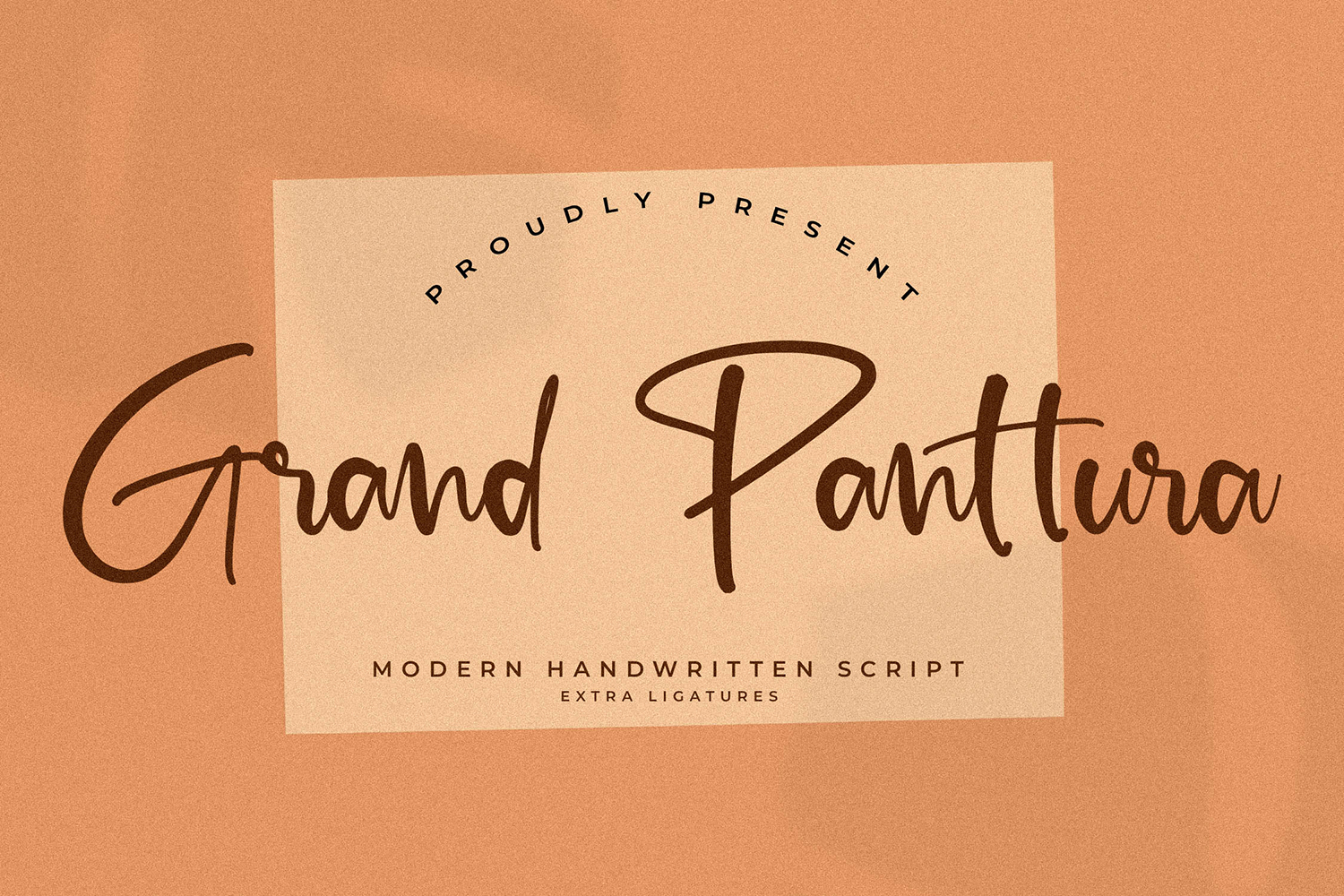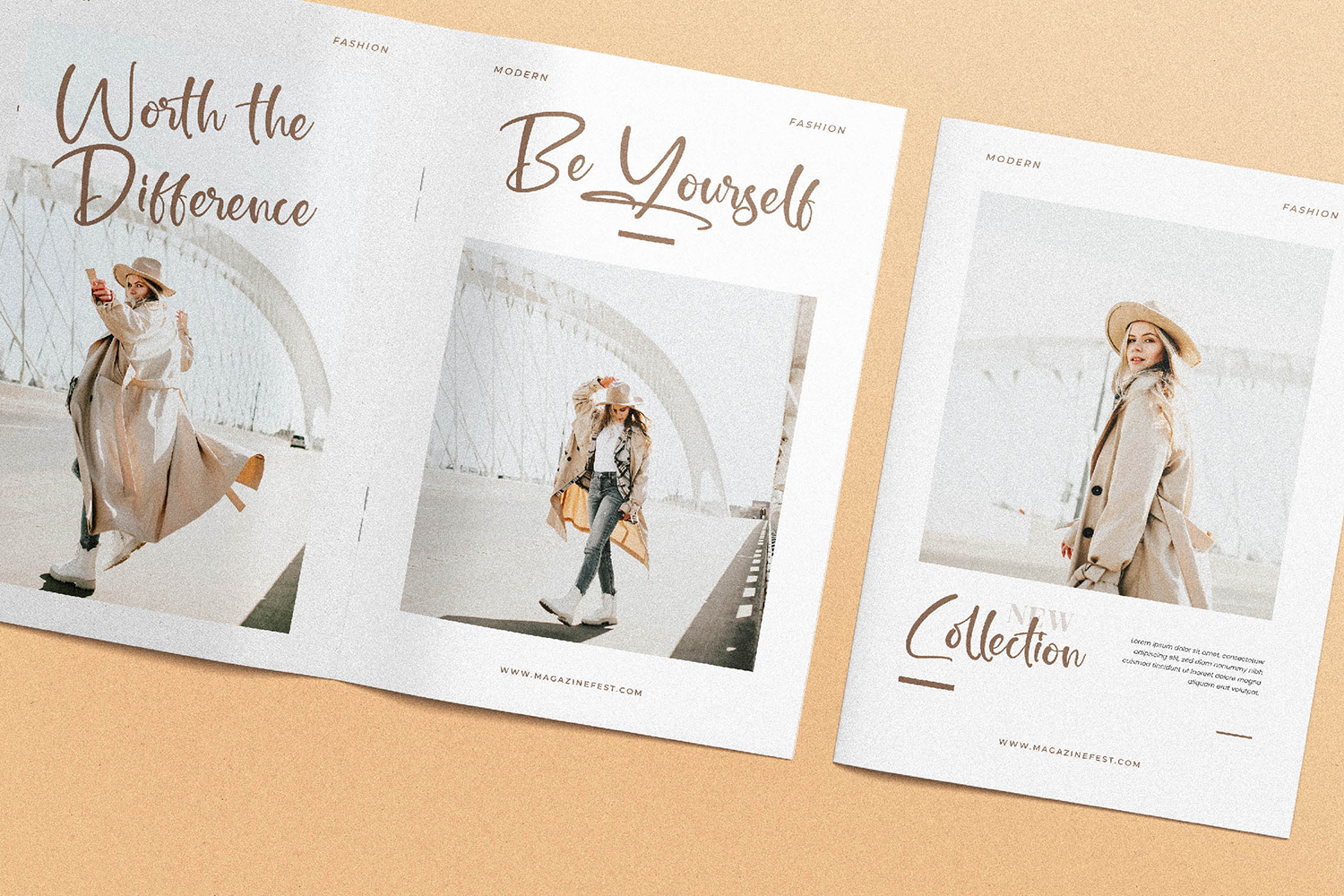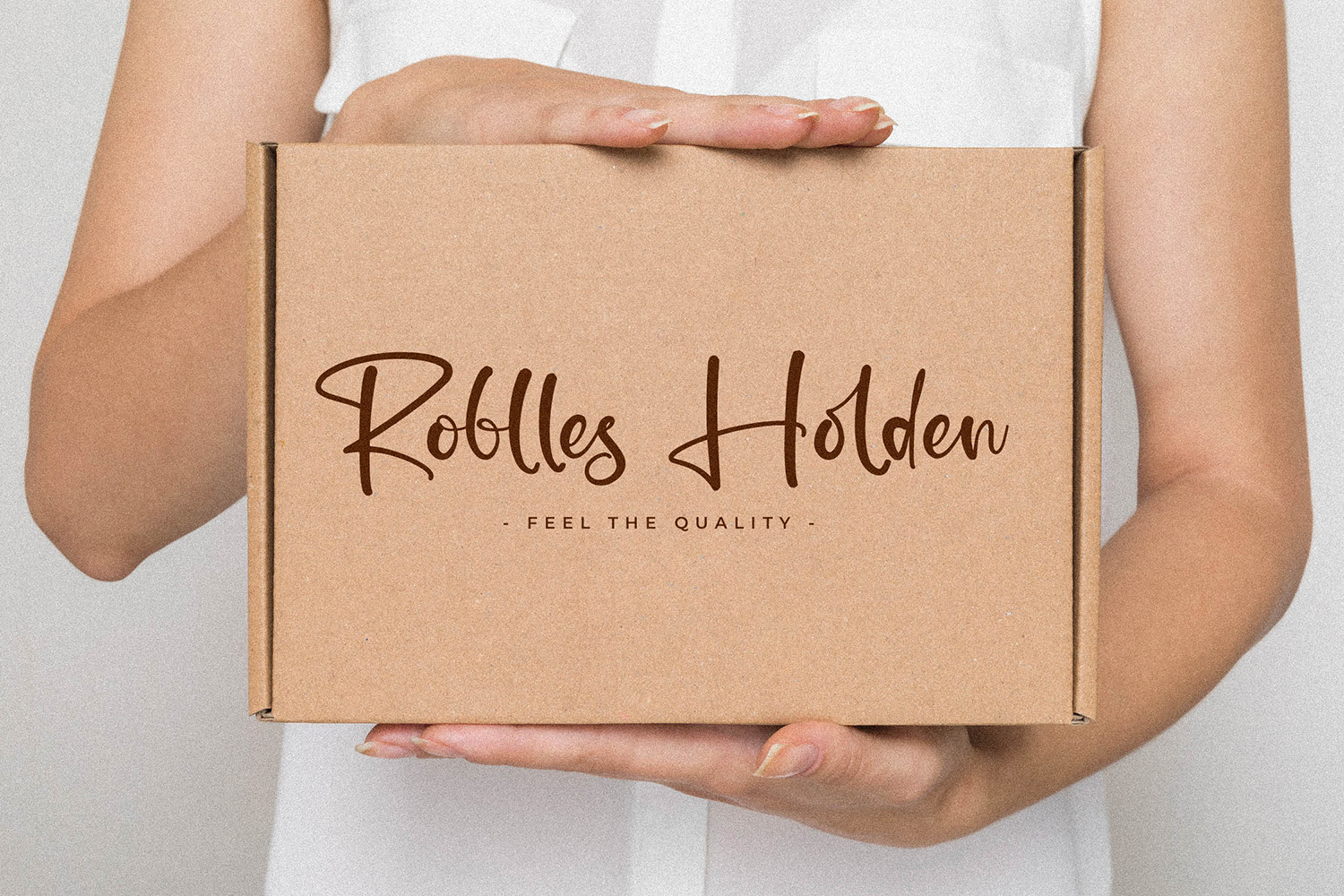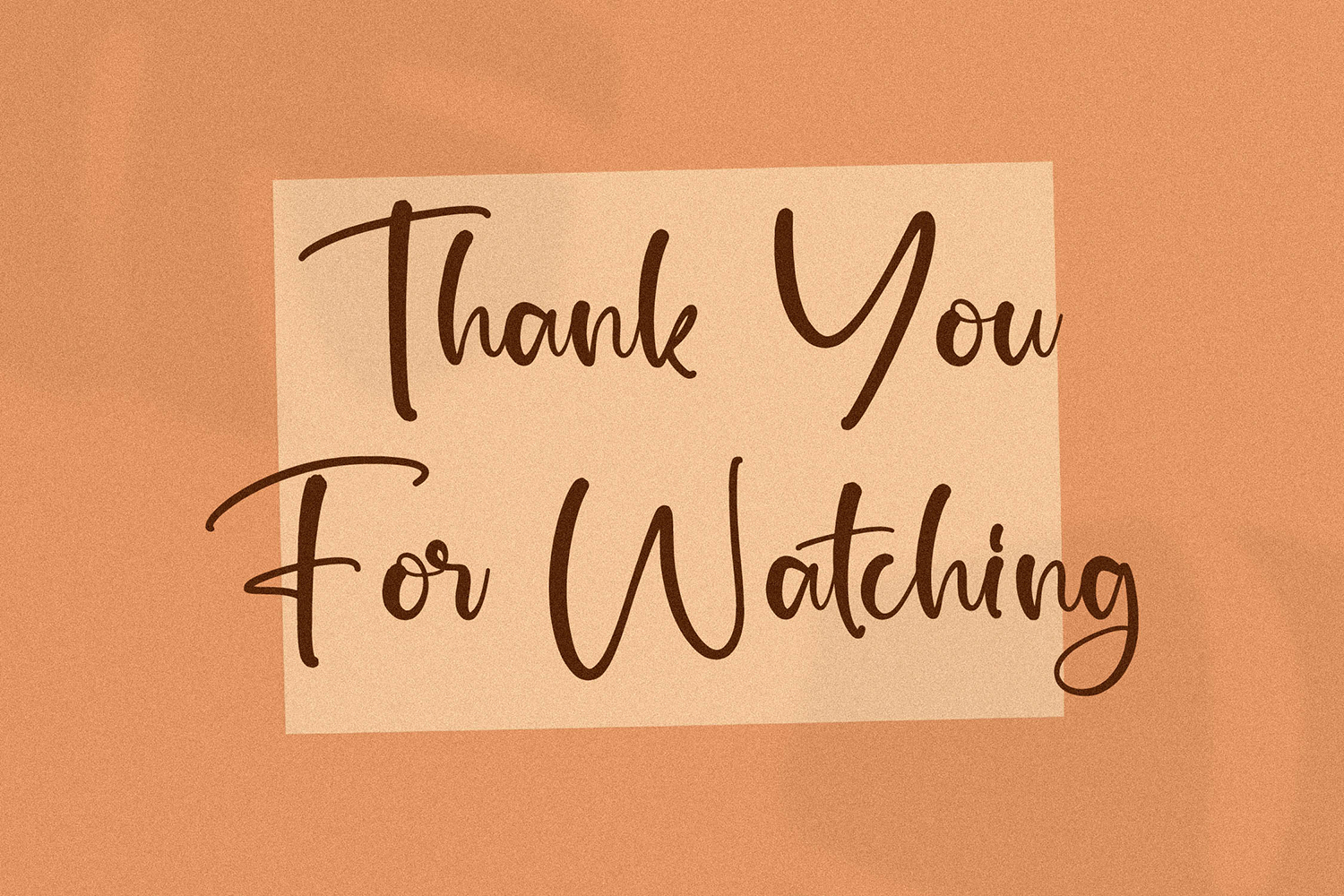
Grand Panttura Free Font
Grand Panttura Free Font is a romantic and sweet calligraphy typeface with characters that dance along the baseline. It will add a luxury spark to any design project that you wish to create. This free typeface was designed by a talented Glorytype Studio. If you like it don’t forget to check out the full version.